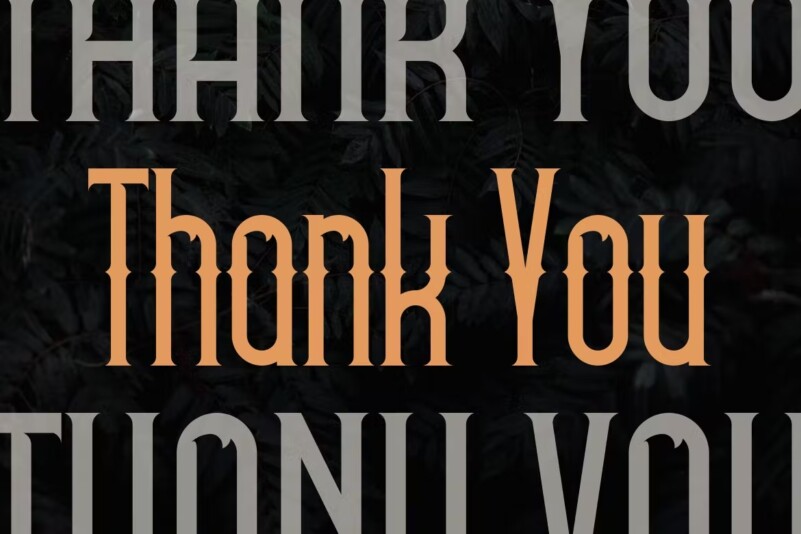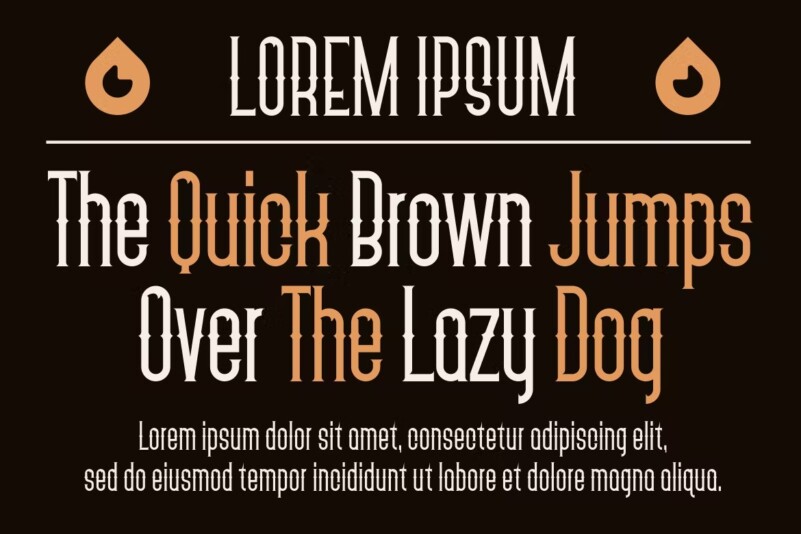
Insidious Magna – Modern Gothic Font
Introducing our new product Insidious Magna Font – Modern Font Insidious Magna Font** – Modern Font is a bold and authentic display font. The font is suitable for any branding project like logo, t-shirt printing, Product and many more. outstanding in a wide range of contexts.